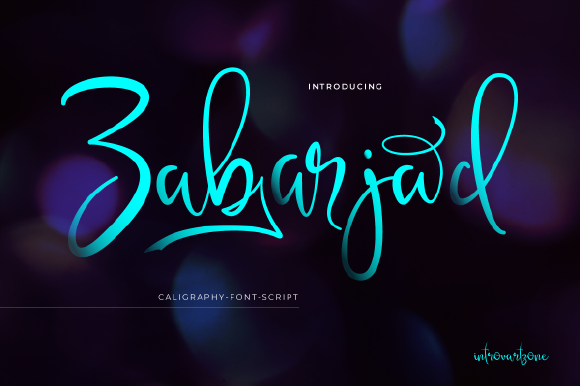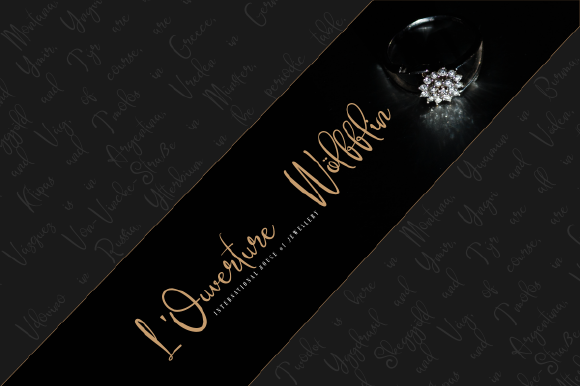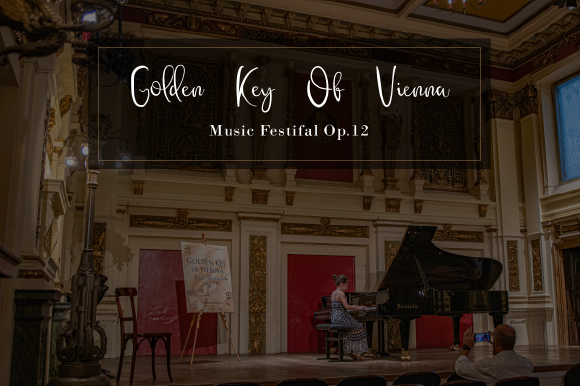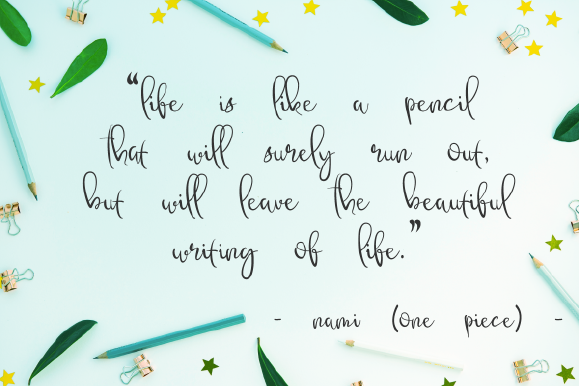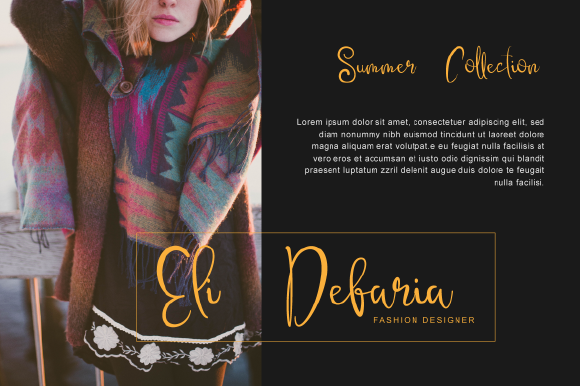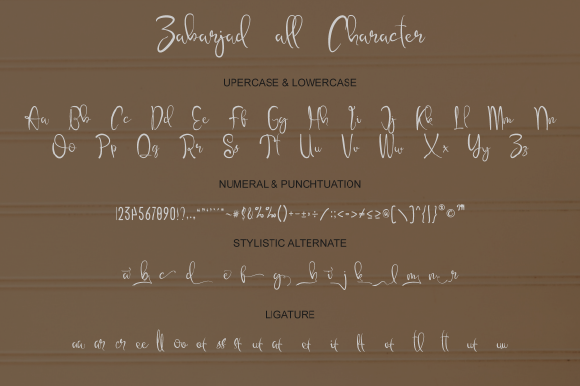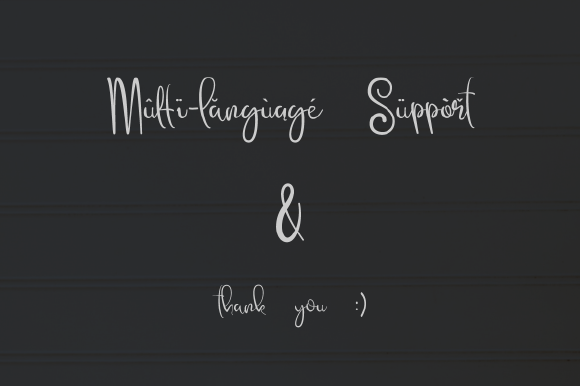
HomeScript FontsZabarjad Font Script Fonts Zabarjad Font FacebookXPinterestWhatsApp Zabarjad Font Poster 2 Zabarjad Font Poster 3 Zabarjad Font Poster 4 Zabarjad Font Poster 5 Zabarjad Font Poster 6 Zabarjad Font Poster 7 About Zabarjad Font Zabarjad is a beautiful hand-written font. Fall in love with its luxurious feel & look. DOWNLOAD ON CREATIVE FABRICAThis font is sold and delivered by Creative Fabrica. Font Canyon may earn a commission if you buy through this link. People also explored Jumatan Font Marry Lovely Font February Godness Font Lets Get Crazy Duo Font Black Pastel Font Egyptian Revival Bekanco Font Teal Bella Canvas 3001 T Shirt Mockup Megan Font 336 0 TagsZabarjad Font Previous articleCrunchy FontNext articleBouquet Font LEAVE A REPLY Cancel reply Comment: Please enter your comment! Name:* Please enter your name here Email:* You have entered an incorrect email address! Please enter your email address here Website: Save my name, email, and website in this browser for the next time I comment. Personal Use Free Bethania Personal Use Free Read more about this font Vuldo Personal Use Free Read more about this font Special Day Personal Use Free Read more about this font Breakaway Personal Use Free Read more about this font BLOG 5 Fonts That Will Dominate Design Trends in 2026 5 Fonts for 2026 That Will Dominate Design Trends Typography plays a critical role in visual communication, and as we look ahead to 2026, itβs... Top 7 Google Fonts Alternatives for Faster and Privacy-Friendly Web Design (2025) How to Cut Any Font on Cricut: Convert a Font to SVG (Free) Best Fonts for T-Shirt Design β Top 2025 Picks